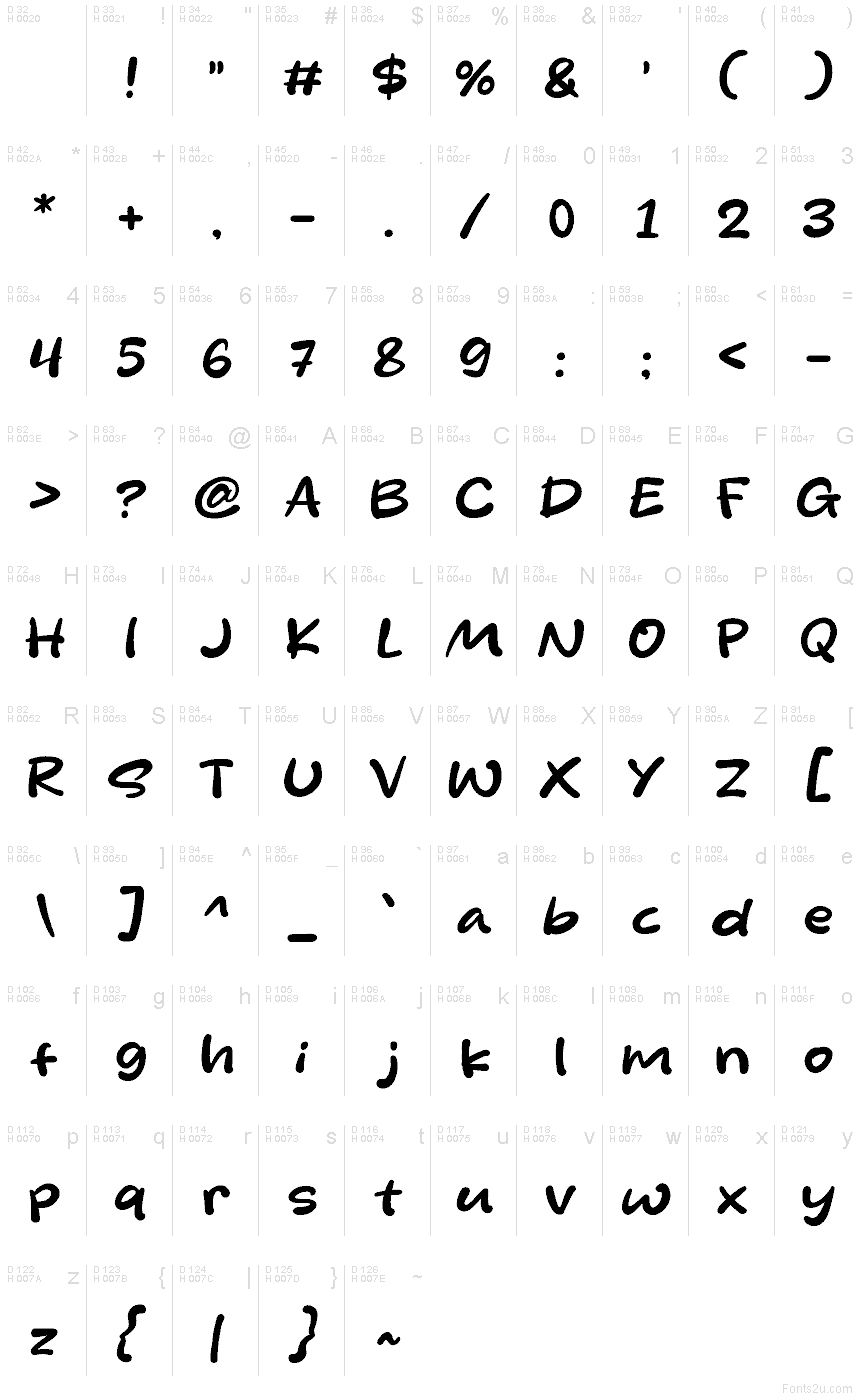
Midfriend
Midfriend font encapsulates an informal and approachable handwritten style that is neatly summoned on a few bold strokes in a cartoon style. The work of Khurasan, it successfully showcases the typical convergence of casualness and elegance present in the best examples of this writing technique.
This free display typeface is ideal for light-hearted designs, cover pages, creative displays, titles, magazine articles, restaurant menus, website designs, beauty products packaging design.